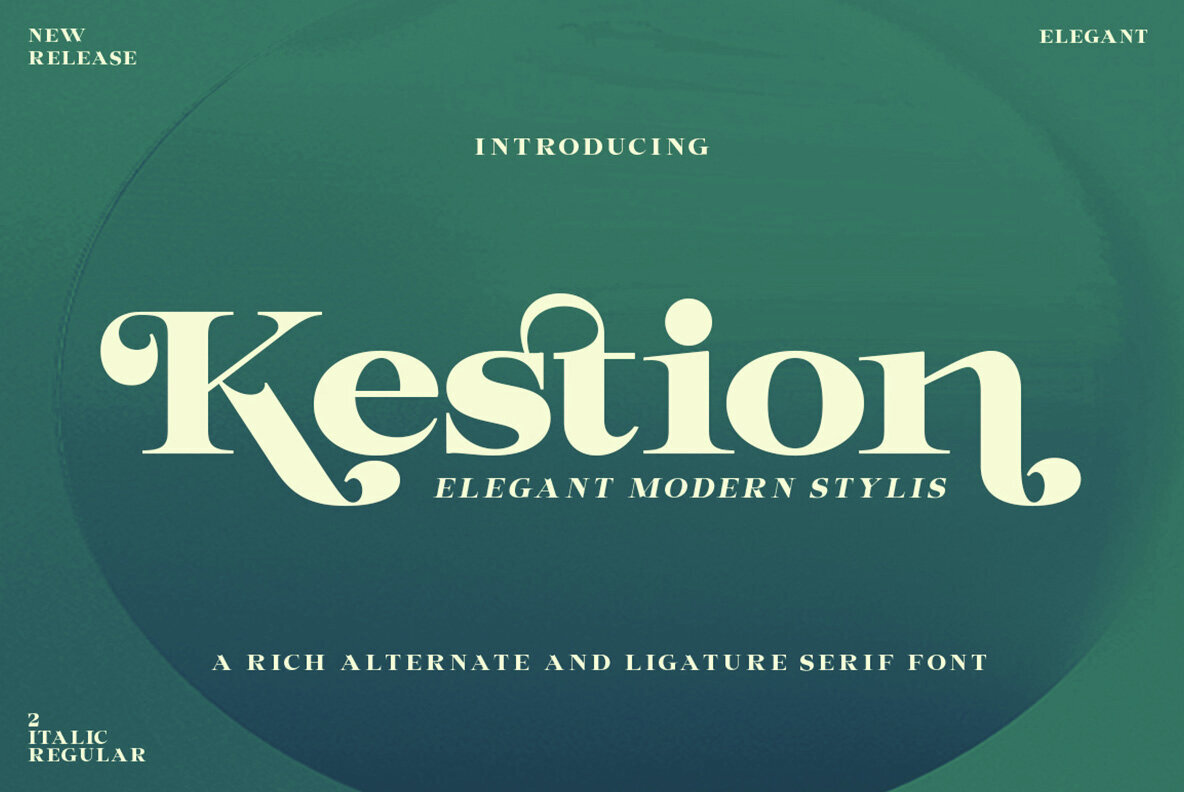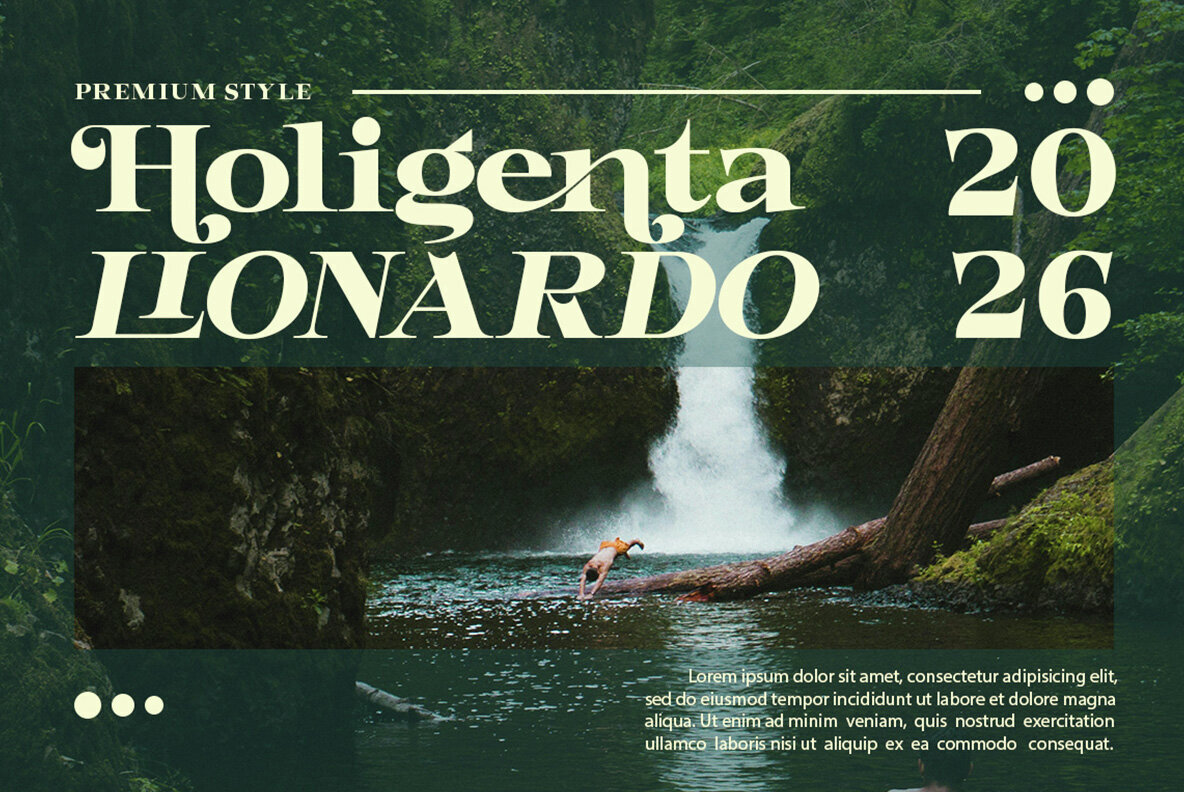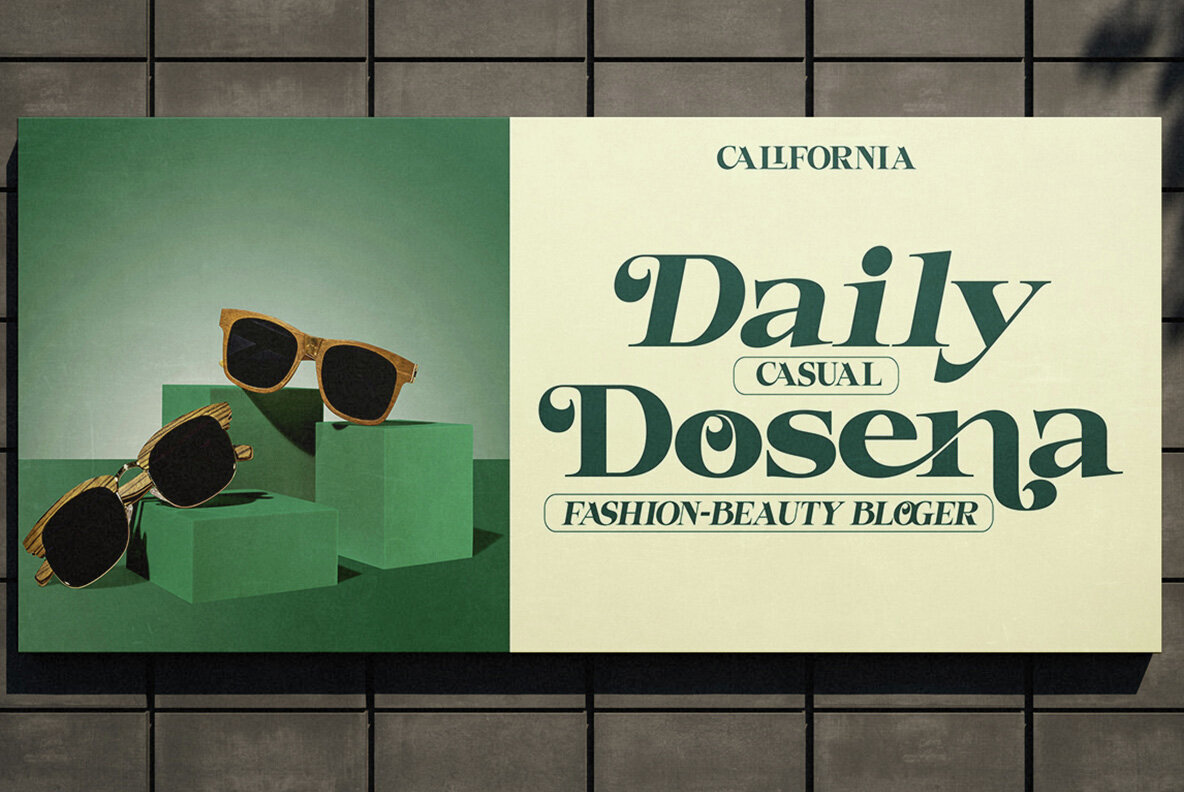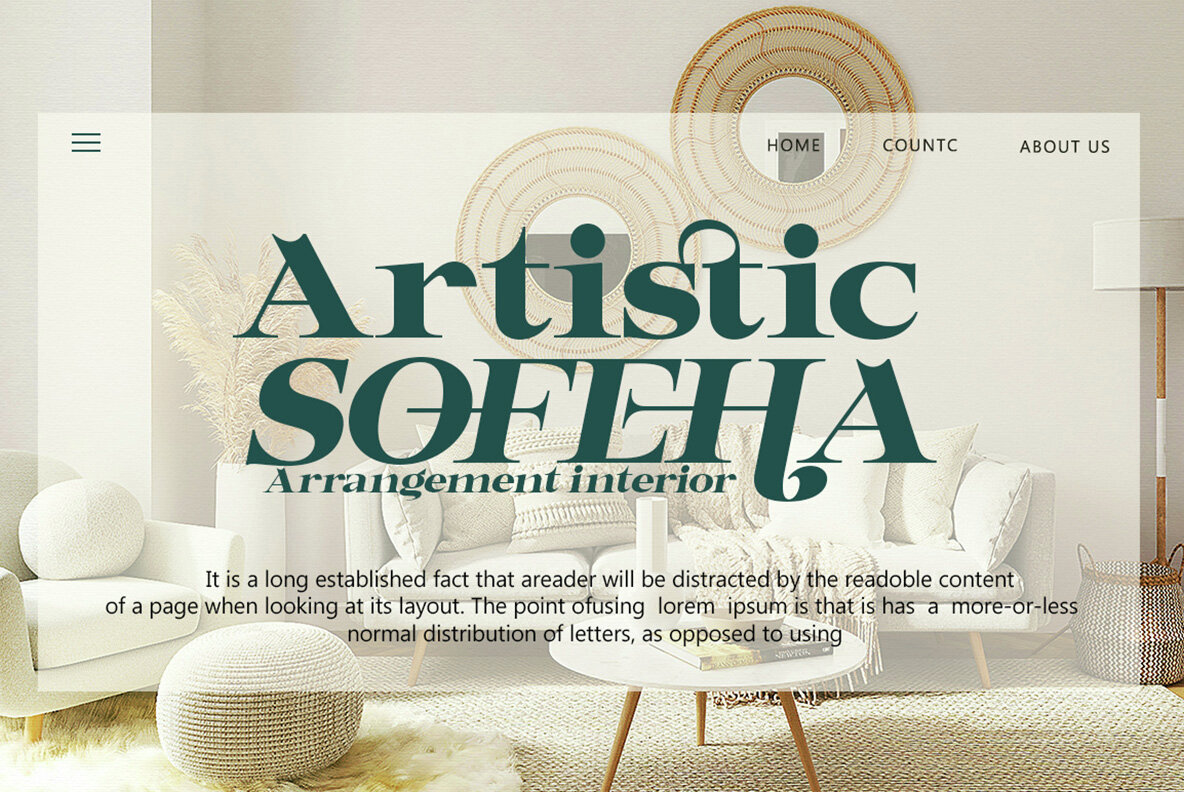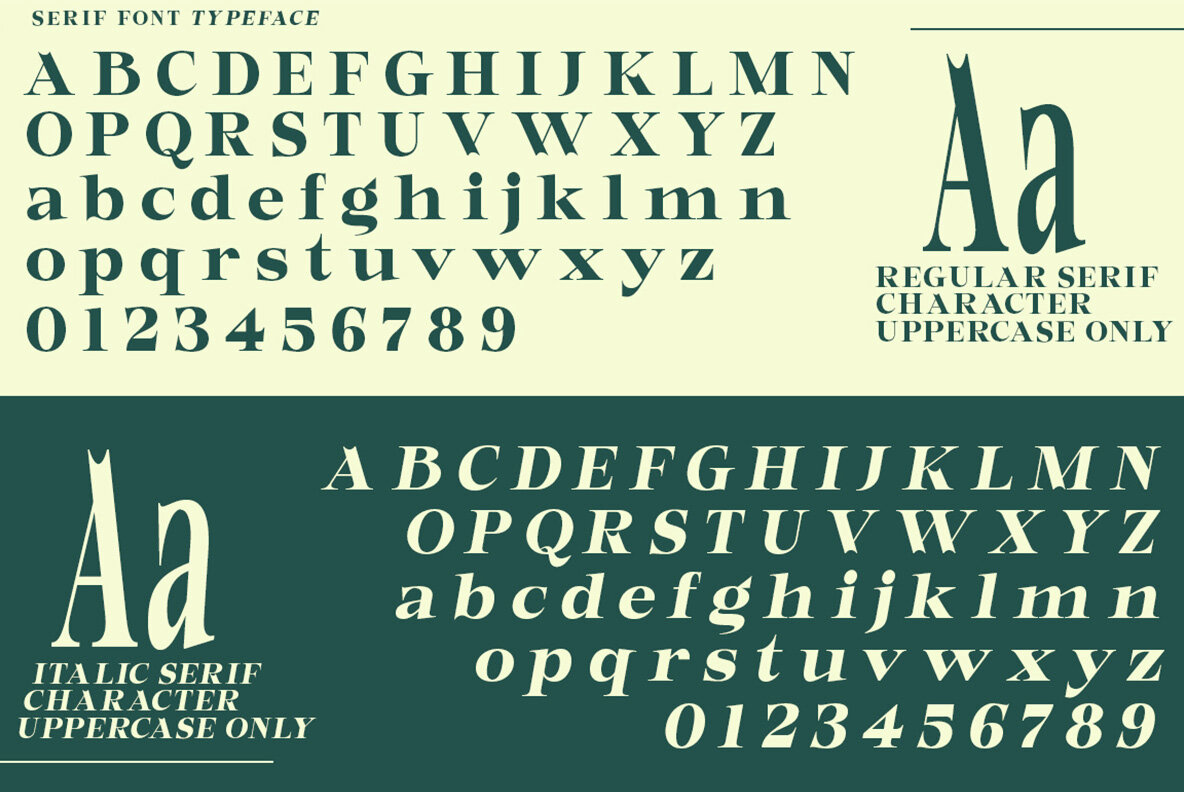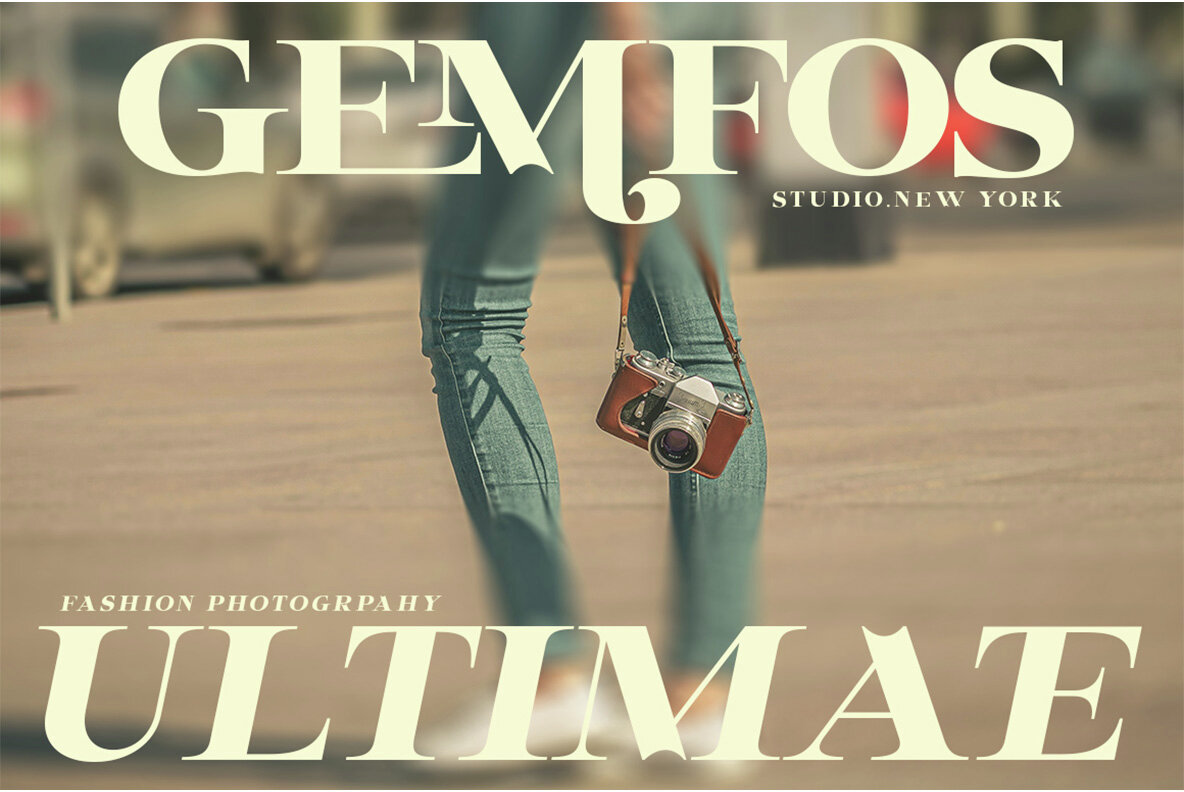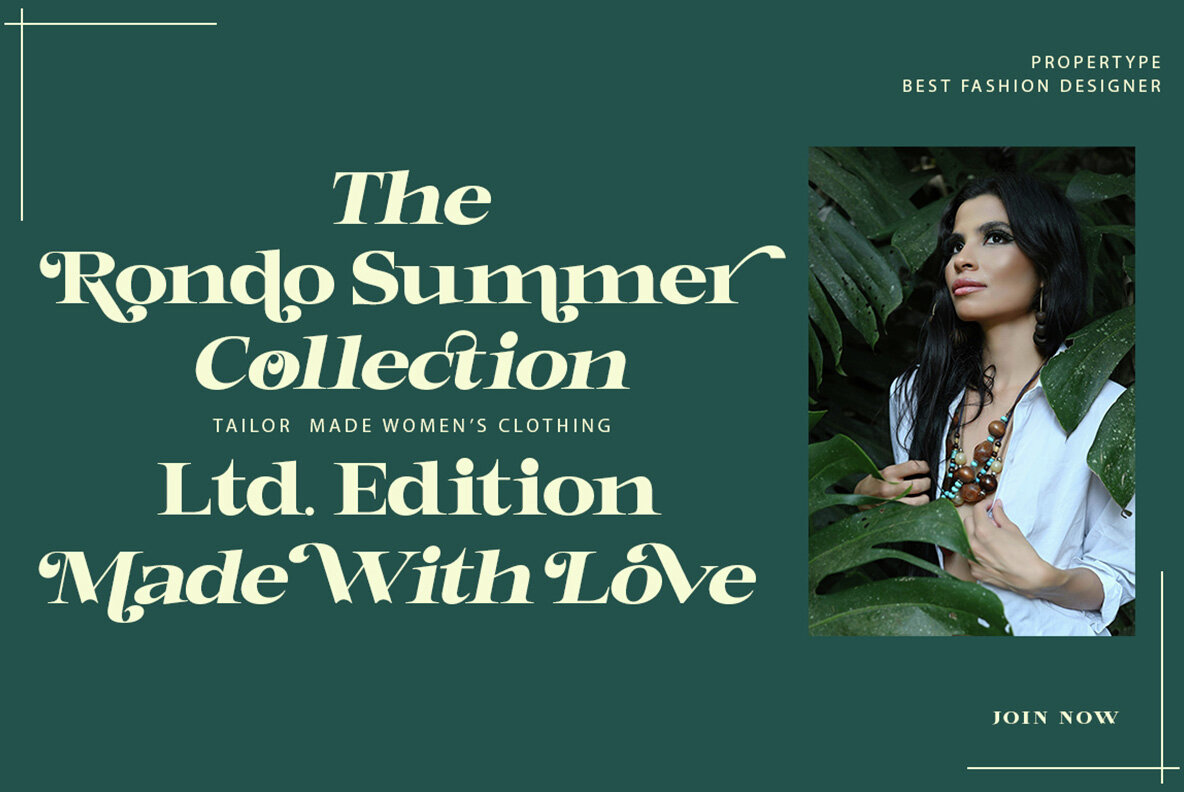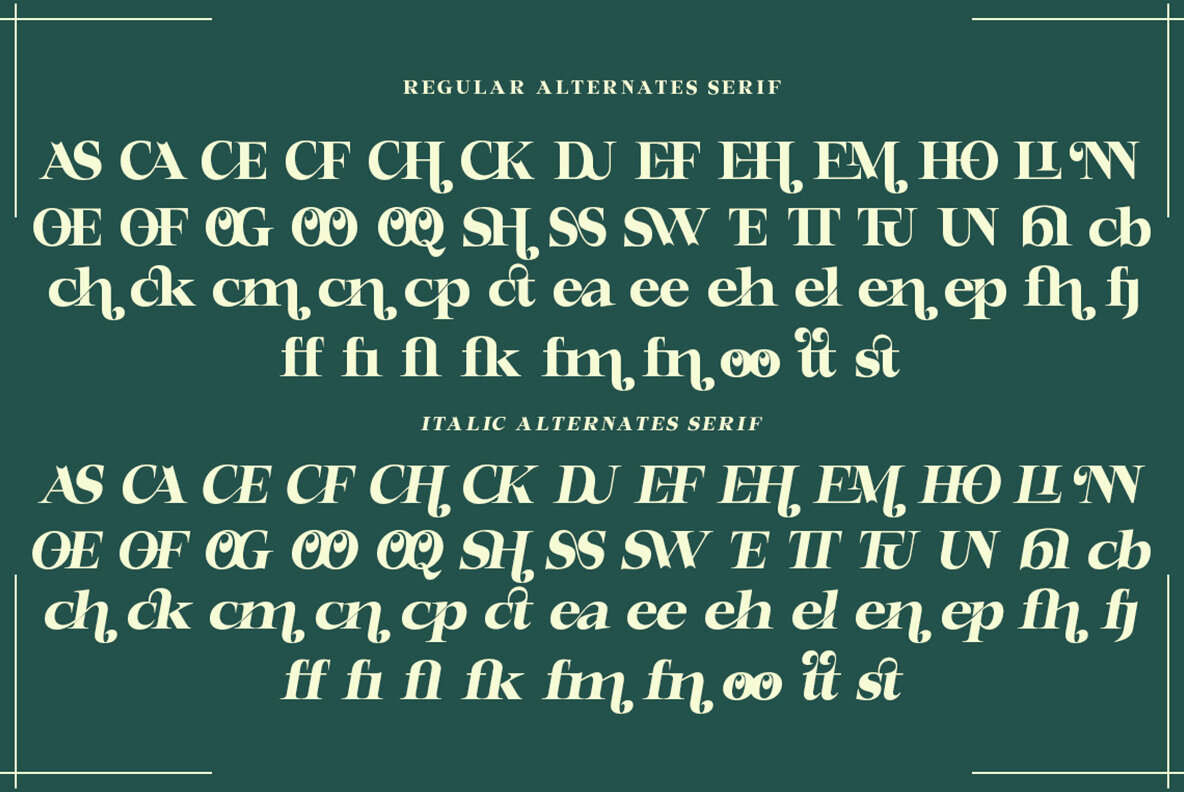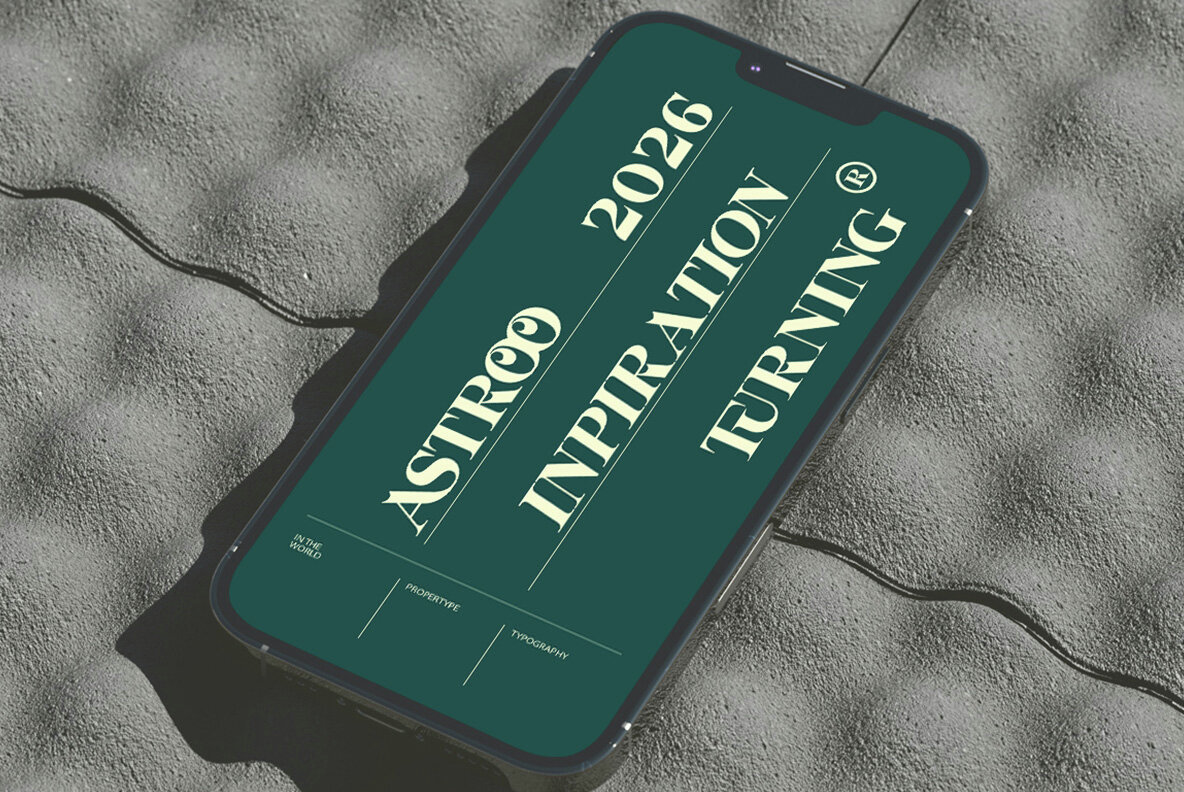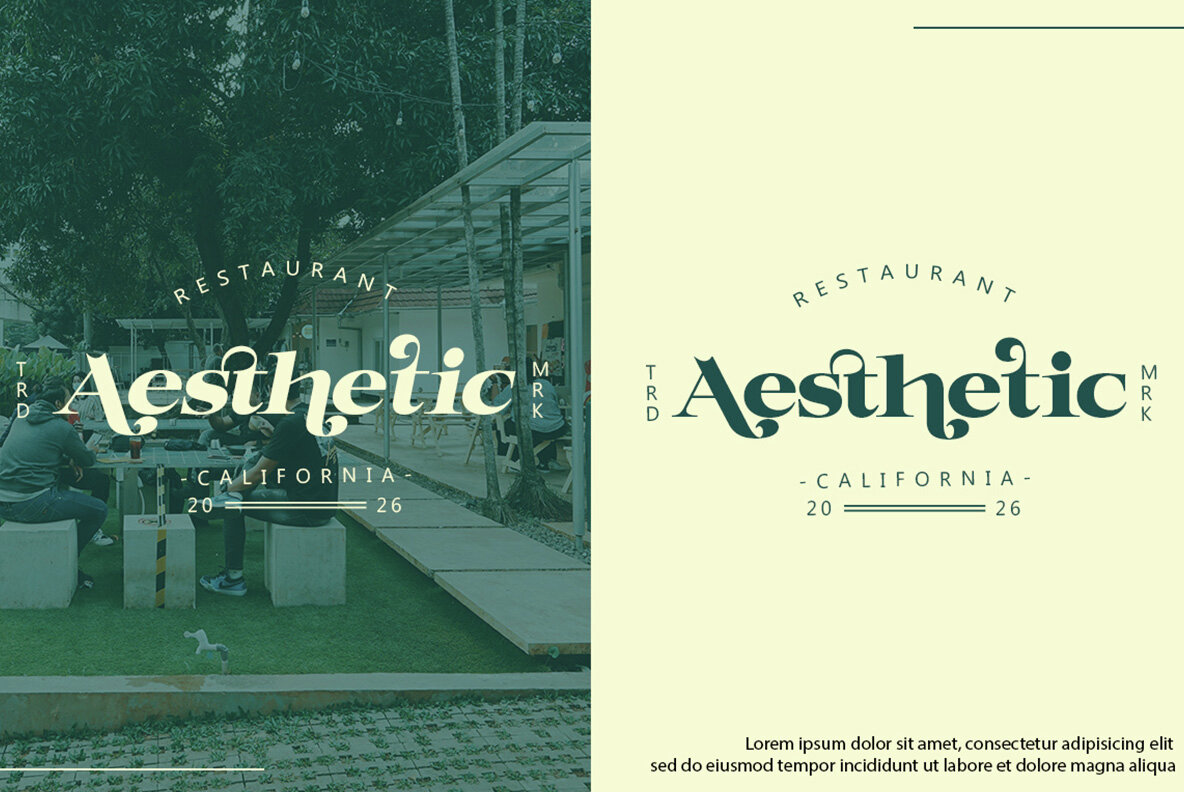
Kestion Font
Designed for the design enthusiast eye, the Kestion font seamlessly blends a modern touch with a vintage flair. This sophisticated serif typeface offers a refined appearance, making it ideal for creating projects that exude luxury and elegance.Kestion: The Modern Vintage Serif Font